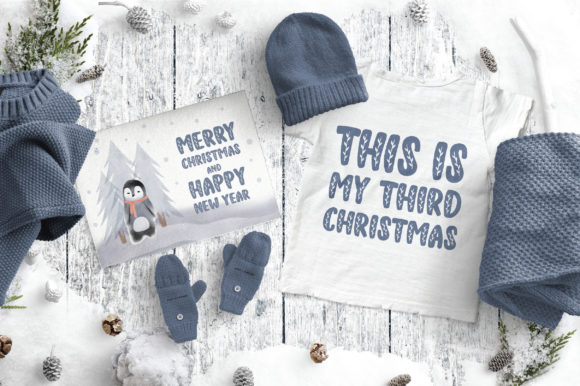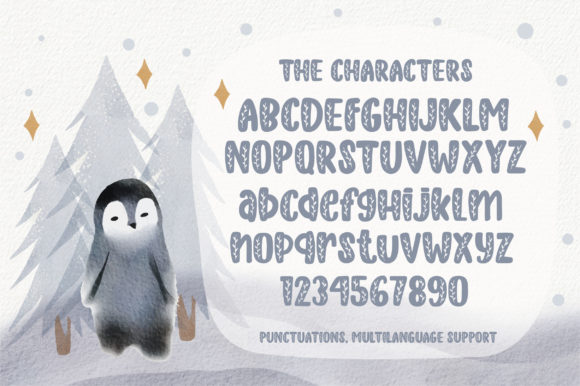
Charming Winter Font
Charming Winter Font is a cool and adaptable display font. This font is suitable for designs such as t-shirts, sportswear, posters, logos, advertisements, clothing, and more.
Charming Winter Font is a cool and adaptable display font. This font is suitable for designs such as t-shirts, sportswear, posters, logos, advertisements, clothing, and more. Whatever the topic, this font will be a great asset to your font collection, as it has the potential to enhance any creation.